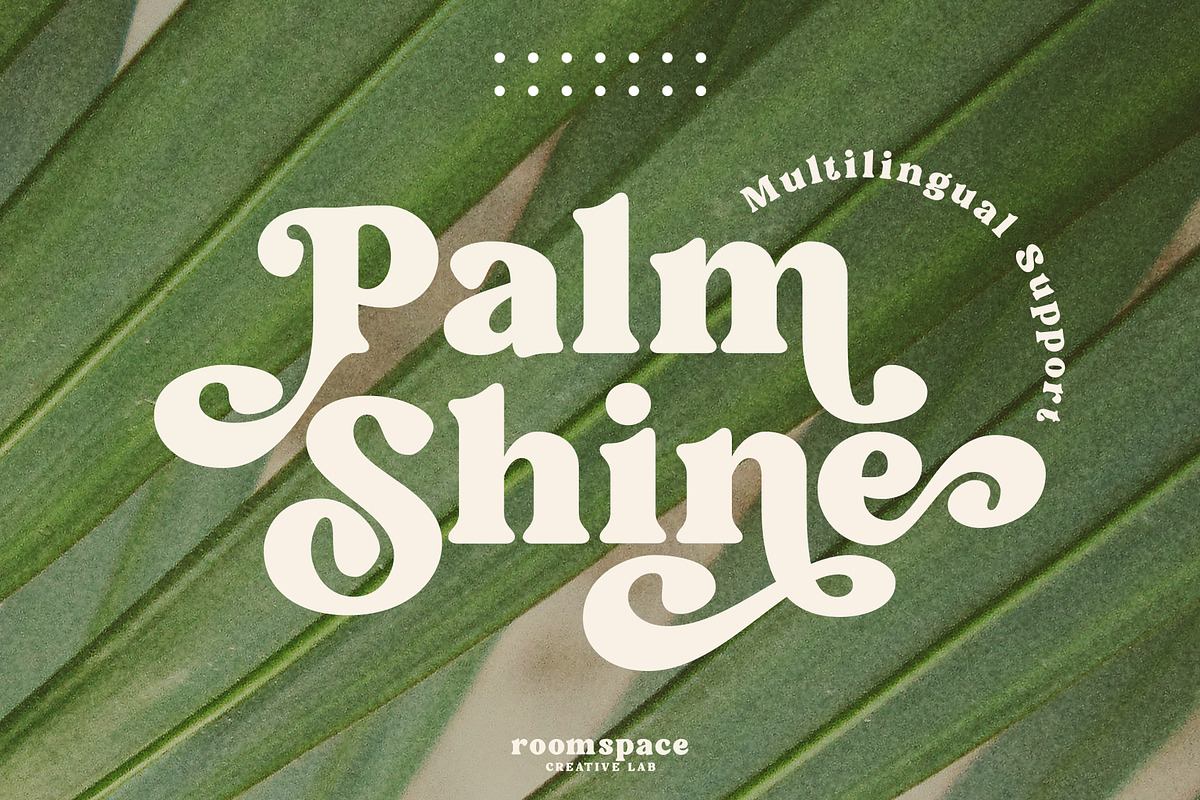
Palm Shine - Bold Swirl Serif Font Free Download is a unique and striking typeface designed to bring boldness and elegance to your designs. With its dramatic swirls and strong serif structure, this font is perfect for high-impact branding, creative logos, event posters, and fashion-related projects. Its elegant, yet bold style makes it ideal for designs that need a standout presence while maintaining sophistication. Whether you're working on a chic boutique logo, an eye-catching advertisement, or an artsy campaign, Palm Shine - Bold Swirl Serif Font Free Download lets you explore its dynamic design in personal projects before purchasing a commercial license. Add a touch of bold elegance and flair to your designs with this beautifully crafted serif font.